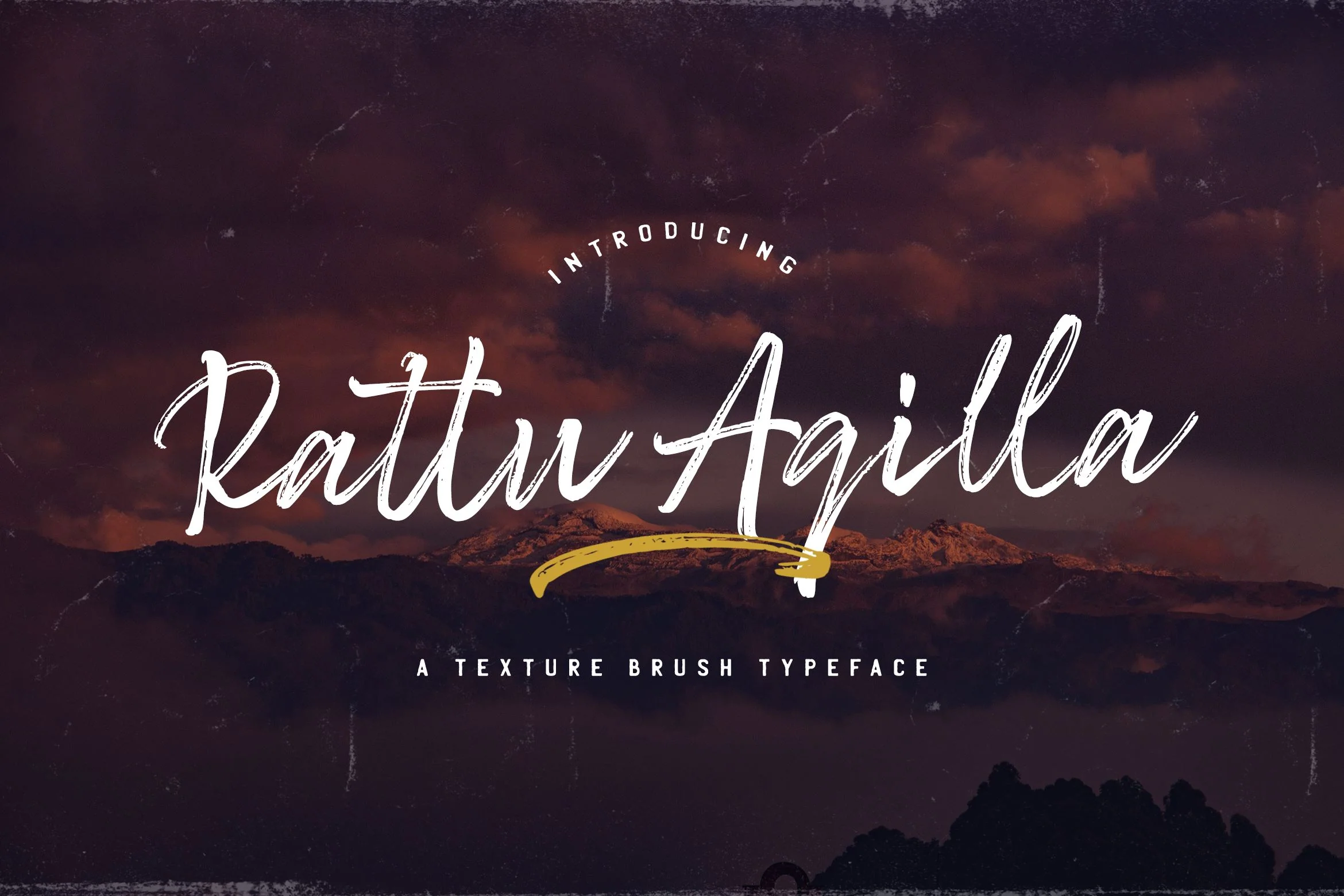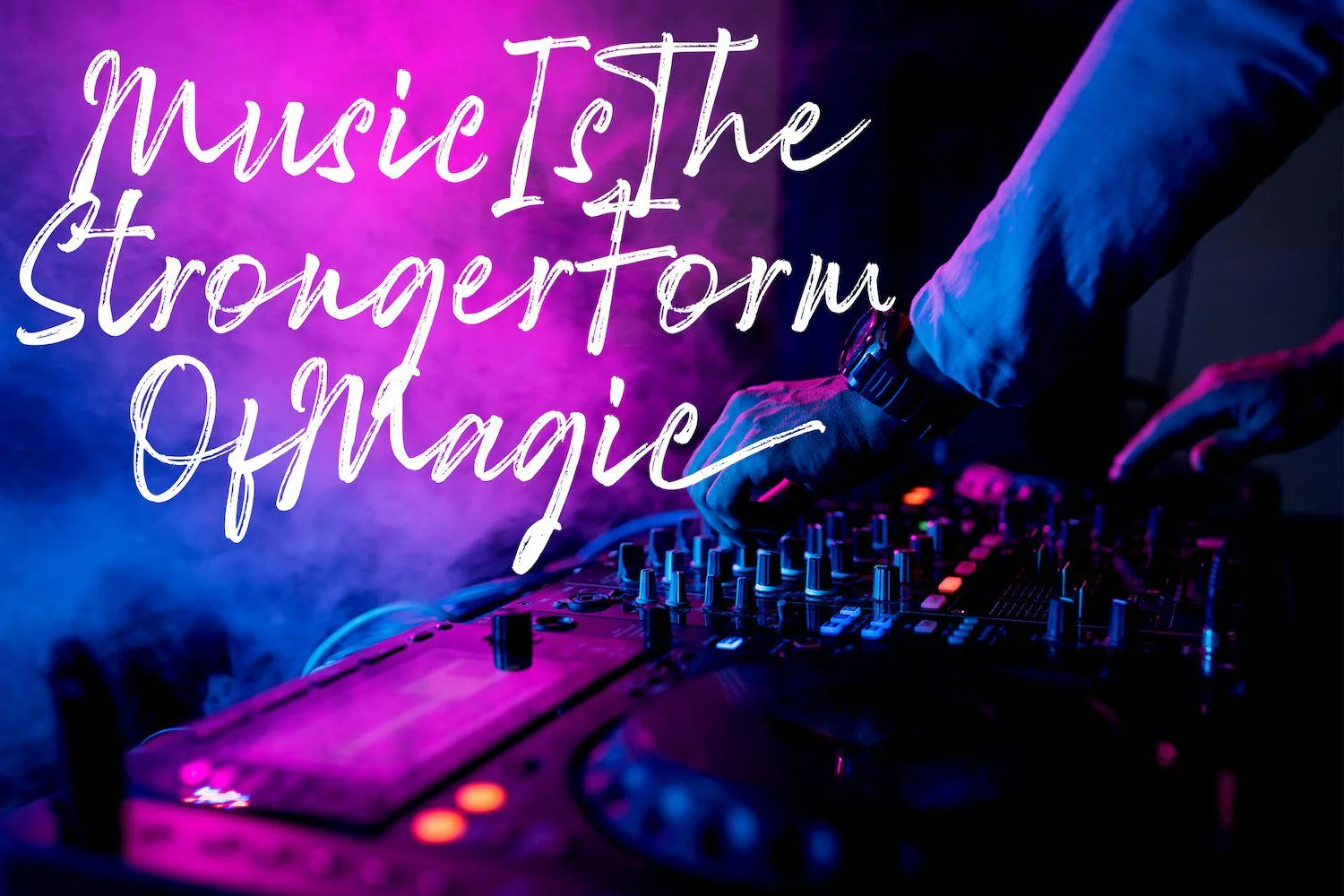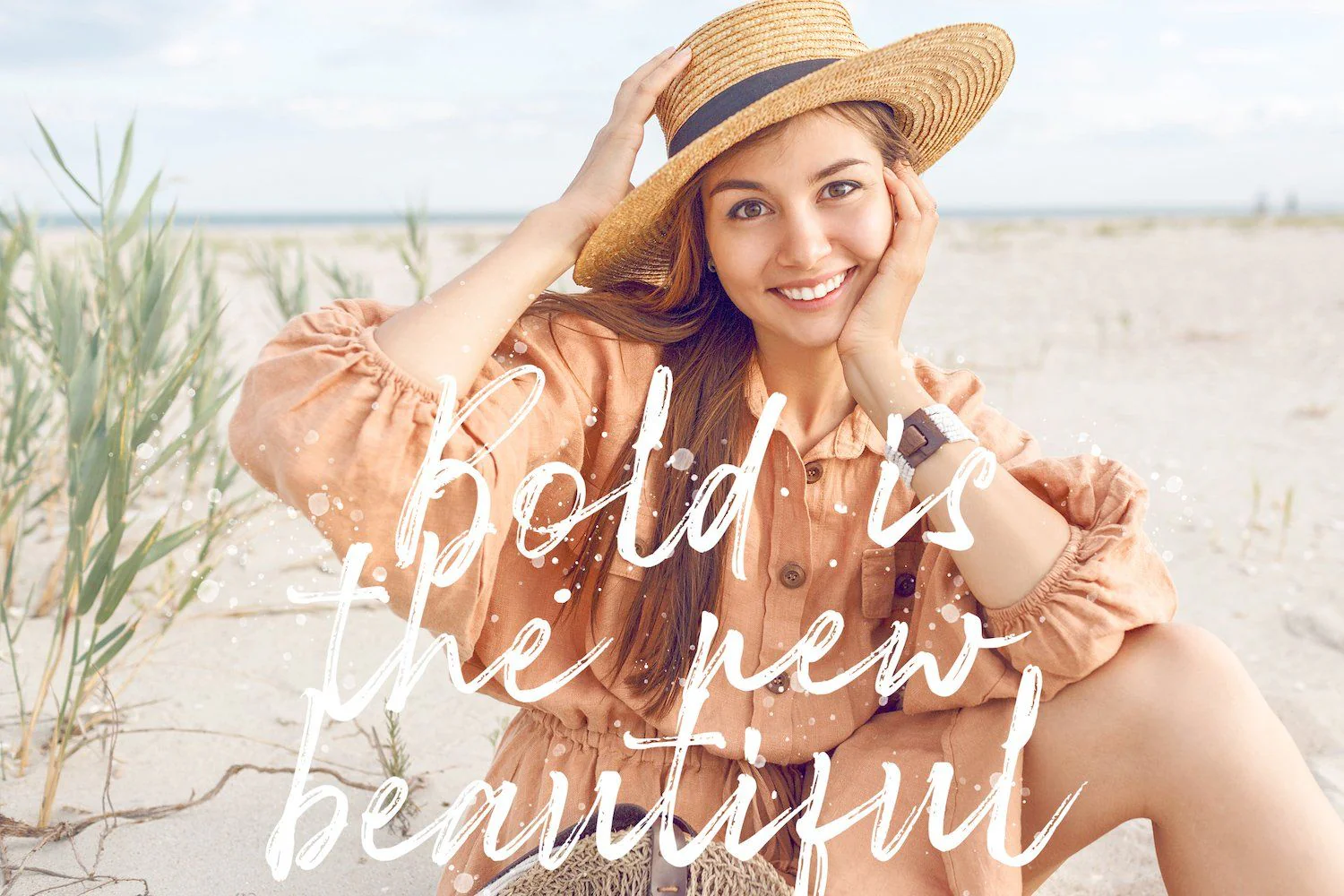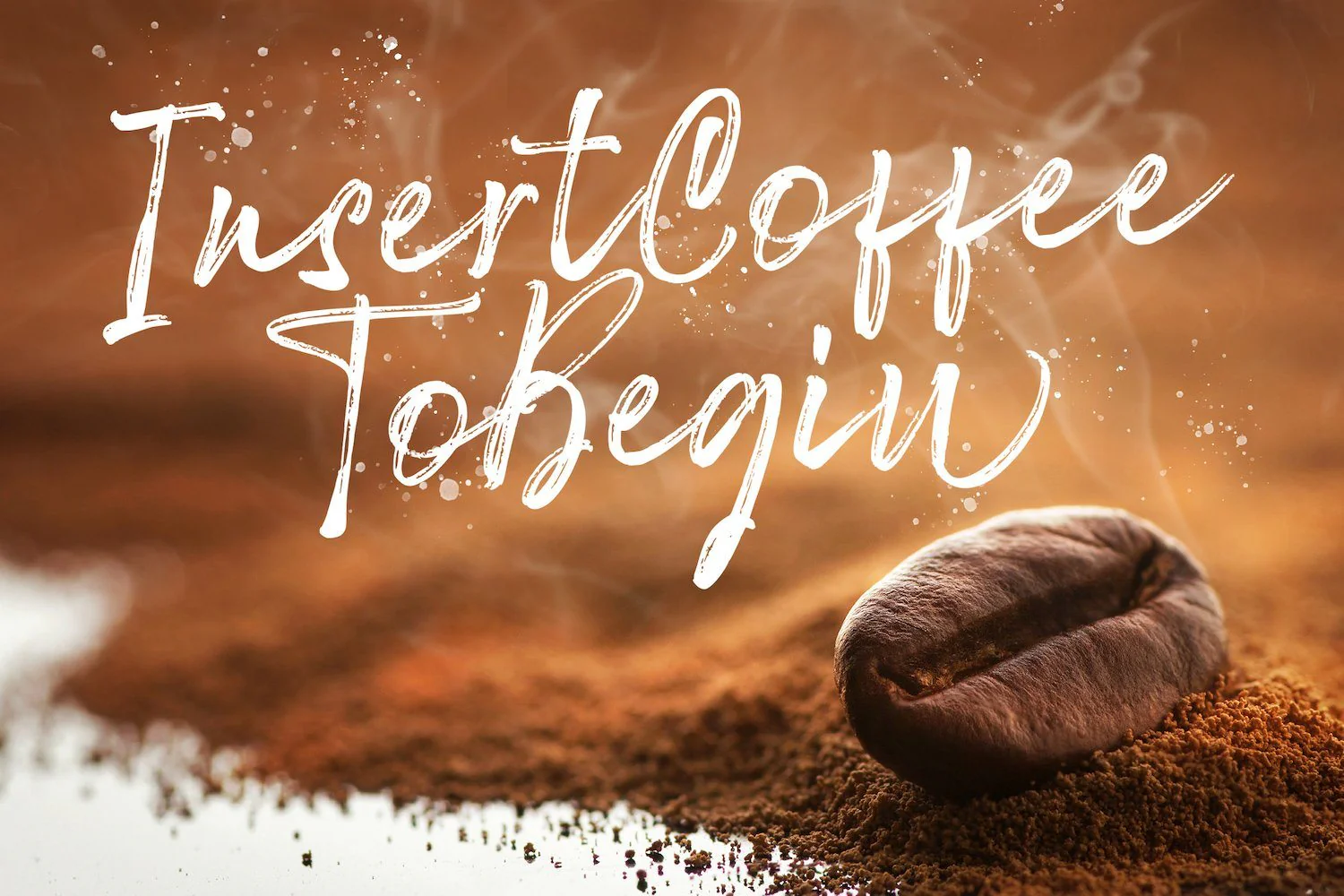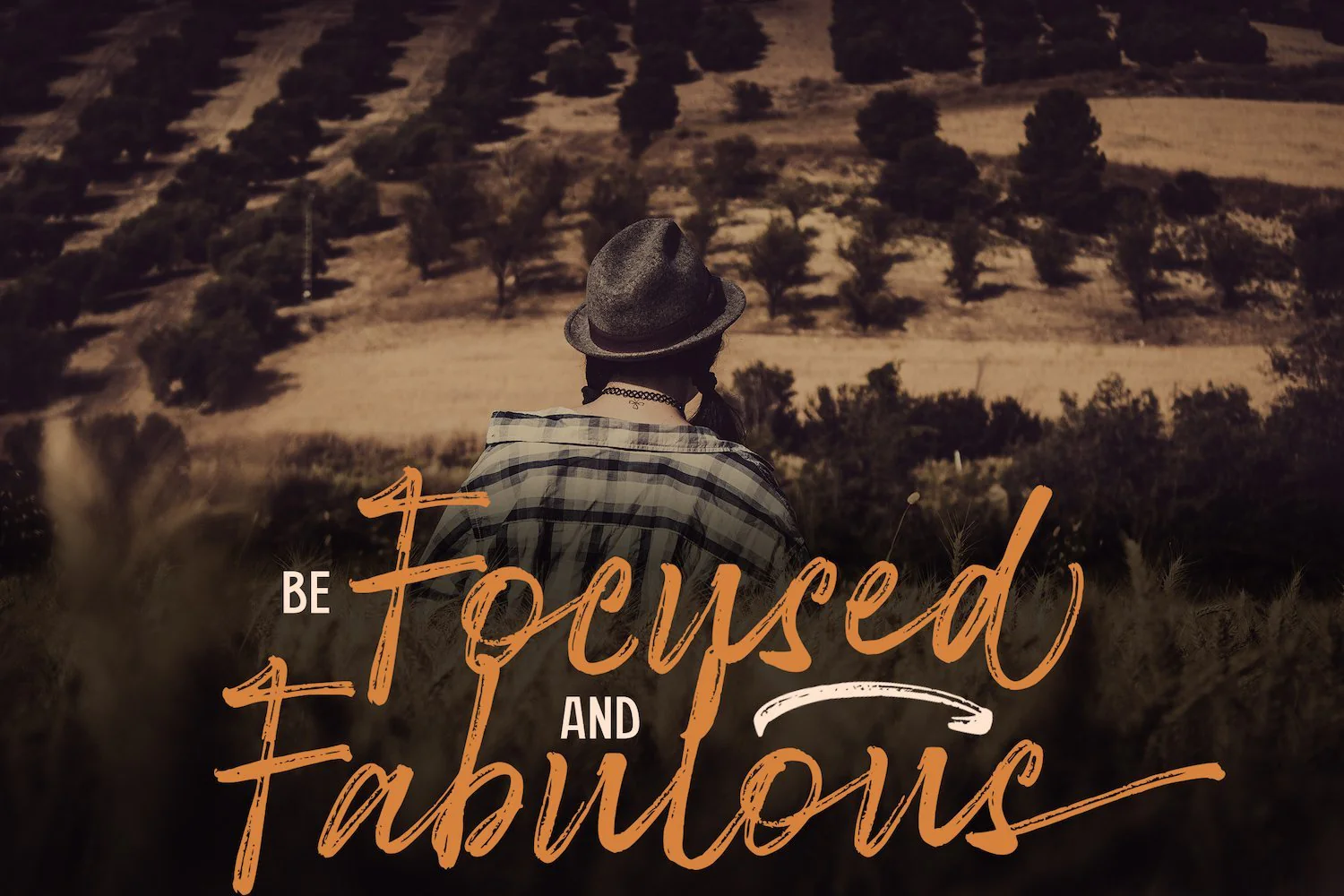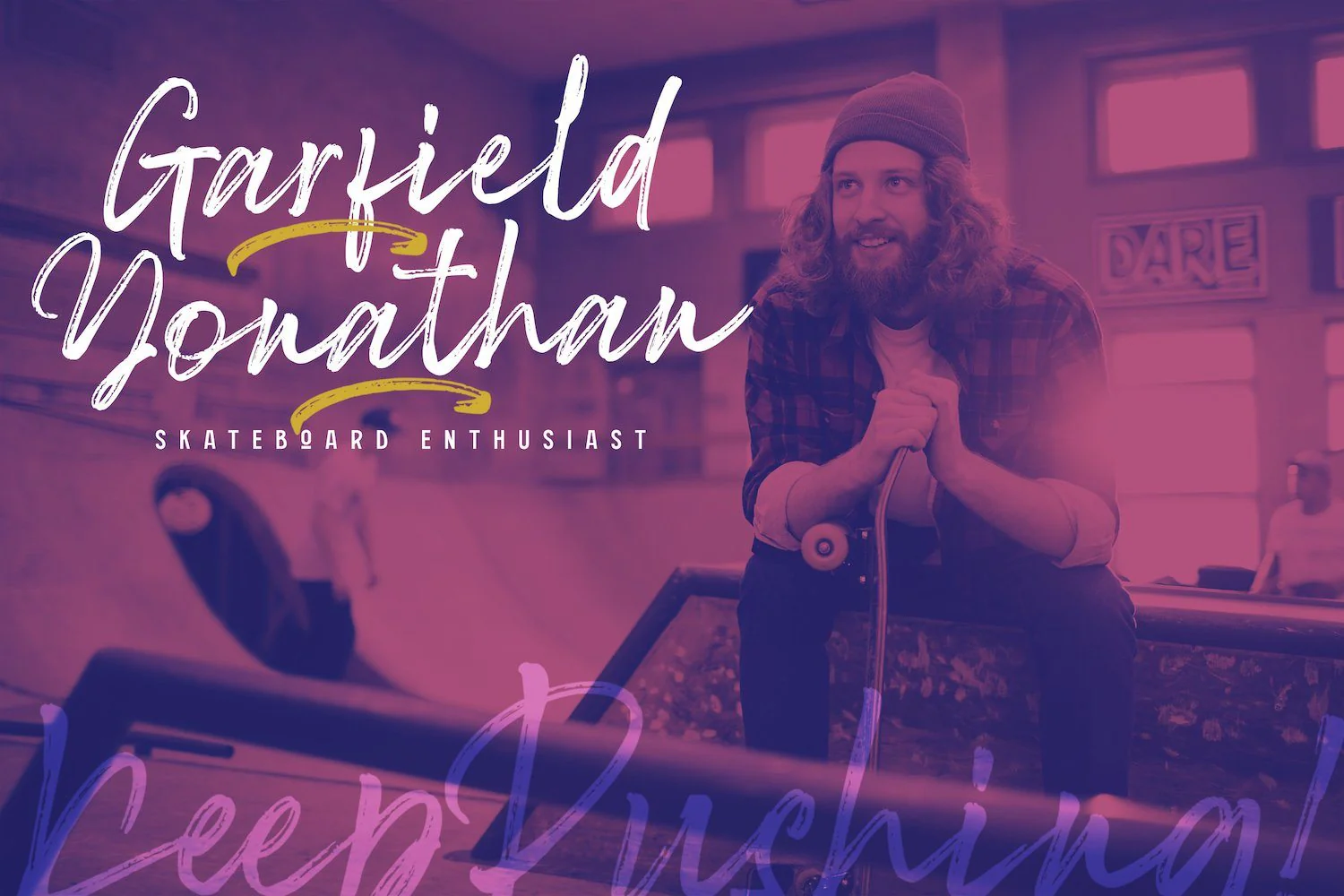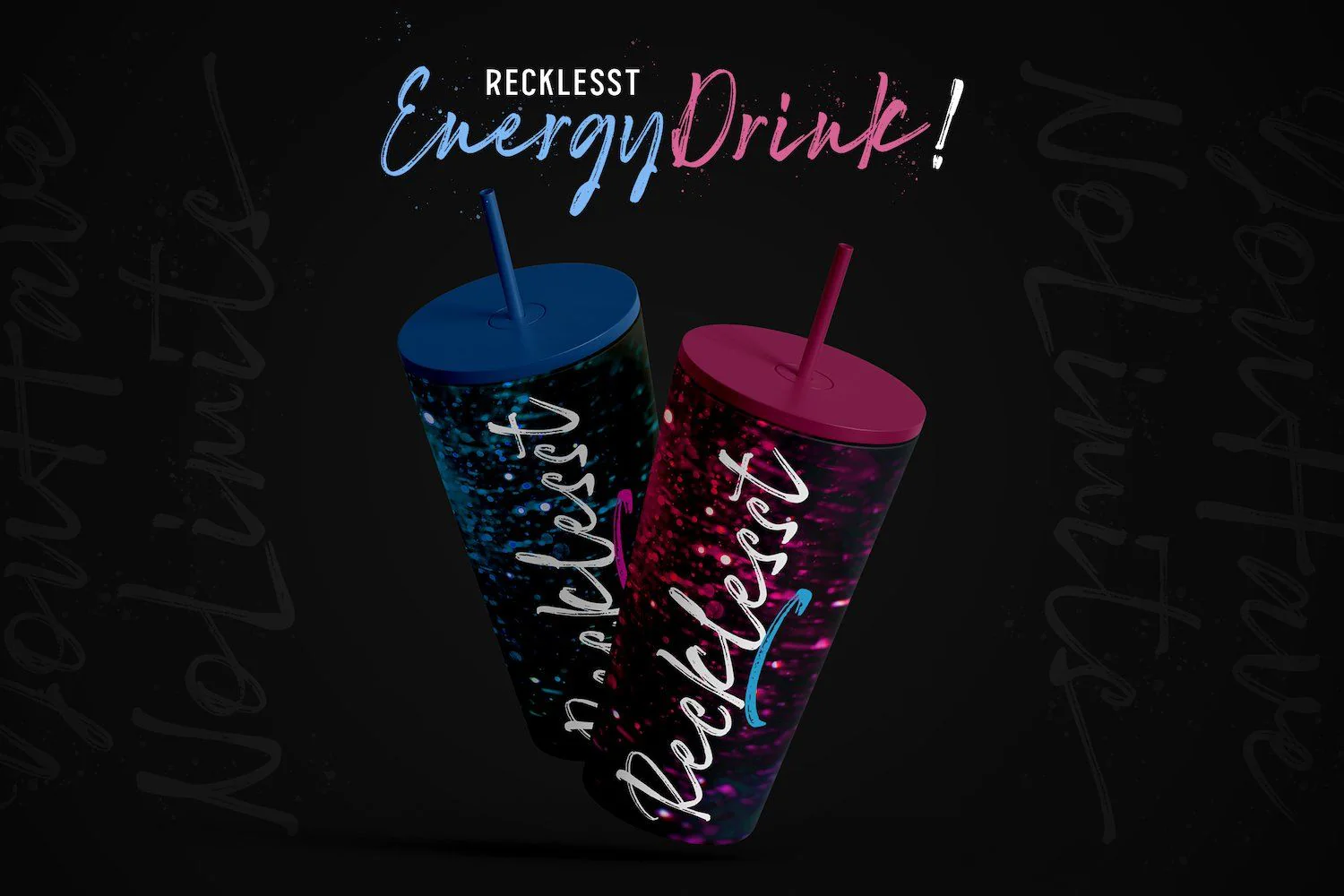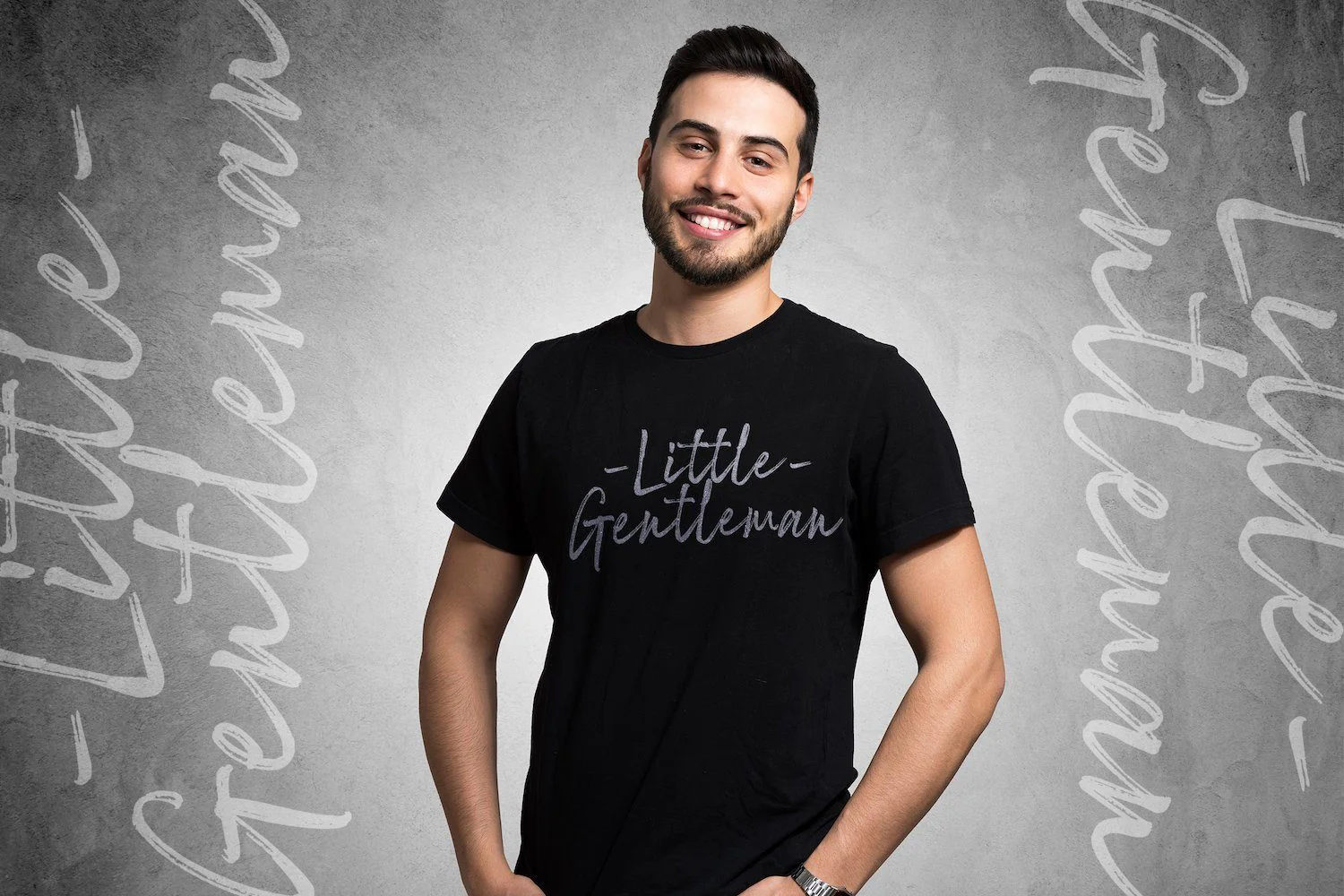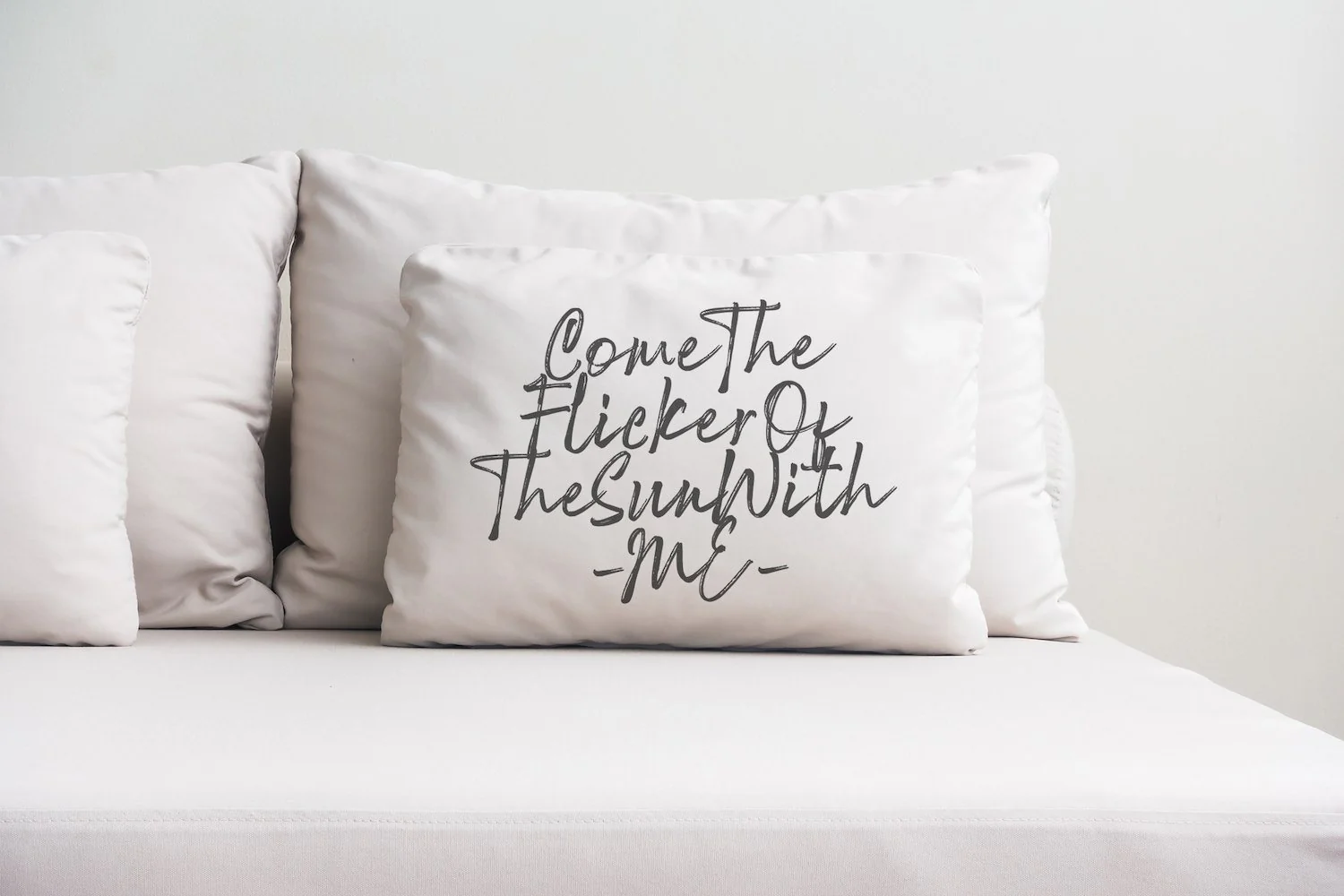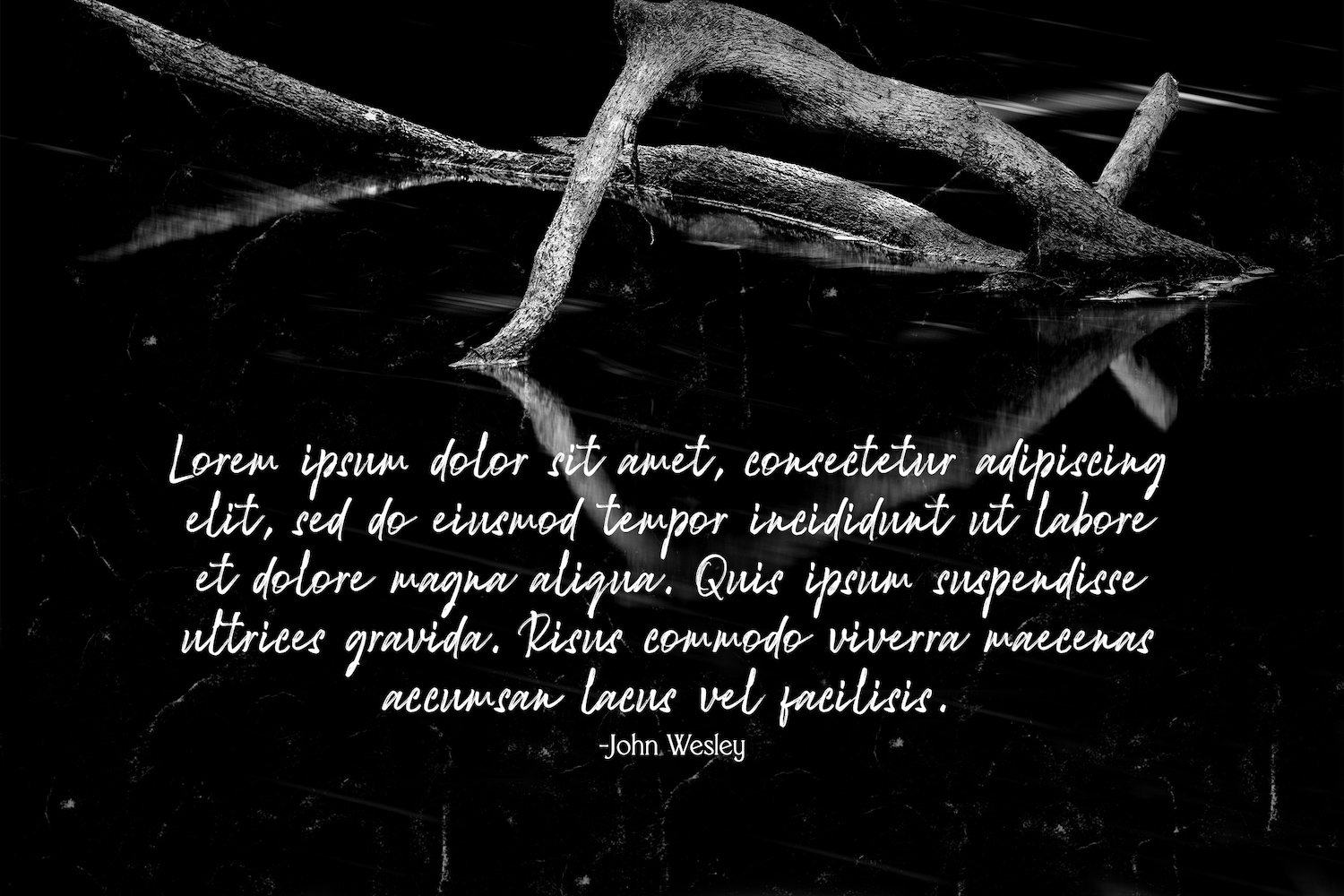
Rattu Aqilla - Textured Brush Font
Introducing Rattu Aqilla - Textured Brush Font
Rattu Aqilla is a textured handwritten brush font, created with the help of a authentic brush. Get inspired by its unique and beautiful style and add it to your favorite designs!
- Swash
Introducing Rattu Aqilla - Textured Brush Font
Rattu Aqilla is a textured handwritten brush font, created with the help of a authentic brush. Get inspired by its unique and beautiful style and add it to your favorite designs!
- Swash